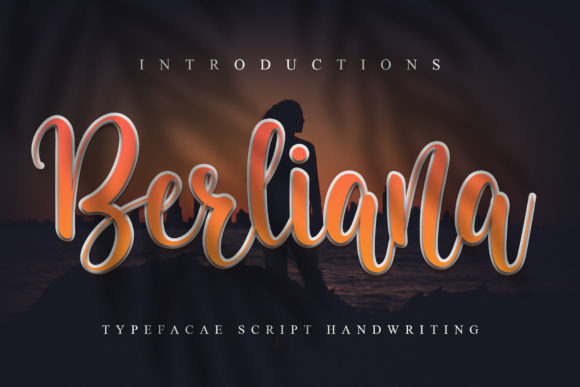
Introducing Berliana Script Font: Elegance and Delicacy in Every Swash
In the world of typography, few fonts manage to capture the essence of elegance and delicacy as beautifully as the Berliana Script Font. This exquisite, handwritten font is designed to bring a touch of sophistication and charm to any design project. With its sweet and delicate swashes, Berliana Script is an excellent choice for crafty ideas, ranging from letterheads and titles to stationery and beyond.
The Unique Charm of Berliana Script
Berliana Script Font stands out for its original and captivating look. Its elegant strokes and dainty swashes add a layer of refinement to any text, making it perfect for designers and crafters looking to infuse their projects with a sense of luxury and grace. Whether you’re working on a branding project, creating bespoke stationery, or designing eye-catching titles, Berliana Script offers the versatility and aesthetic appeal you need.
Key Features of Berliana Script Font
- Elegant and Dainty Design: The font’s delicate strokes and swashes bring an air of elegance to any design.
- Handwritten with Love: Berliana Script boasts a genuine handwritten look, making each letter feel personal and unique.
- Sweet Swashes: The swashes in Berliana Script add a decorative touch, perfect for titles, headings, and any design element where you want to make a statement.
- Versatile: From formal letterheads to creative stationery, this font adapts beautifully to a wide range of design projects.
Applications of Berliana Script Font
The versatility of Berliana Script Font makes it suitable for various design applications. Here are some of the most popular uses:
- Letterheads and Business Cards: Add a professional yet personal touch to your business correspondence.
- Stationery: Elevate your notebooks, journals, and greeting cards with a sophisticated look.
- Titles and Headings: Use Berliana Script to create stunning titles for blogs, magazines, and websites.
- Branding and Packaging: For brands aiming to convey elegance and luxury, Berliana Script can be a valuable asset.
Tips for Using Berliana Script Font
To make the most of Berliana Script Font, consider the following tips:
- Pair with Simplicity: Let Berliana Script be the focal point by pairing it with simpler fonts for body text.
- Adjust Swashes: Experiment with the swashes to find the perfect balance for your design.
- Consider Size: The elegance of Berliana Script often shines brighter at larger sizes, making it ideal for titles and headings.
Berliana Script Font is more than just a typeface; it’s a design element that brings elegance, delicacy, and a touch of personal warmth to any project. Its unique swashes and elegant strokes make it a versatile choice for a myriad of design applications. Whether you’re a professional designer or a crafting enthusiast, Berliana Script offers the perfect blend of sophistication and charm to elevate your creations. Discover the beauty of Berliana Script and let it transform your designs into stunning works of art.